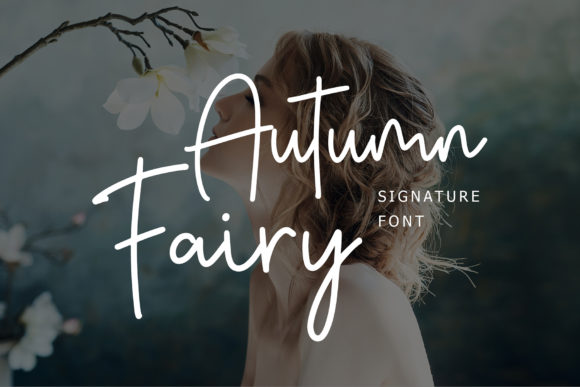
The Magic of Autumn Fairy Font: A Designer’s New Best Friend
I’ll never forget the design project that led me to discover the Autumn Fairy font. I was working on a fall-themed invitation for a client’s wedding, and I was struggling to find the perfect handwritten font that would capture the essence of the season. The client wanted something classy, yet modern and fresh. I spent hours scouring the internet, trying out font after font, but nothing seemed quite right. That was until I stumbled upon Autumn Fairy. ✨
As soon as I saw it, I knew I had found “the one.” The elegant, flowing lines and the subtle calligraphic influences immediately caught my eye. I was impressed by how versatile it looked, and I couldn’t wait to put it to the test. In this article, I’ll share my experience with Autumn Fairy, including what I love about it, some minor quirks, and practical tips on how to use it on different platforms.
- 💫 Exquisite handwritten design with a classy, calligraphic feel
- 🌟 Contemporary and fresh, perfect for modern designs
- 🎨 Highly versatile, suitable for a wide range of projects, from invitations to branding
- 👍 Easy to read, even in smaller sizes
Minor Quirks
While Autumn Fairy is an amazing font, there are a few things to keep in mind: 🤔
- ⚠️ Some characters may not work well in very small sizes, so it’s best to use it at larger sizes (14pt and up)
- ⚠️ Limited availability of stylistic alternates, but what it offers is well-curated
The Story Behind Autumn Fairy
While the true story behind Autumn Fairy’s creation remains a mystery, it’s easy to imagine a designer inspired by the whimsical beauty of fall. Perhaps they spent hours watching leaves fall, observing the way the light danced through the trees, and capturing the essence of the season in a font. Whatever the inspiration, Autumn Fairy is a true masterpiece that brings a touch of magic to any design.
Q: Is Autumn Fairy suitable for body text?
A: While Autumn Fairy is beautiful, it’s best used for headings, titles, and short paragraphs. For longer body text, a more straightforward font might be more readable.
Autumn Fairy is a true gem in the world of typography. Its unique blend of classic calligraphy and modern freshness makes it a versatile and beautiful addition to any design project. Whether you’re a designer, crafter, or creative hobbyist, this font is sure to become a favorite. So go ahead, fall in love with Autumn Fairy, and bring your projects to new heights! 🌟